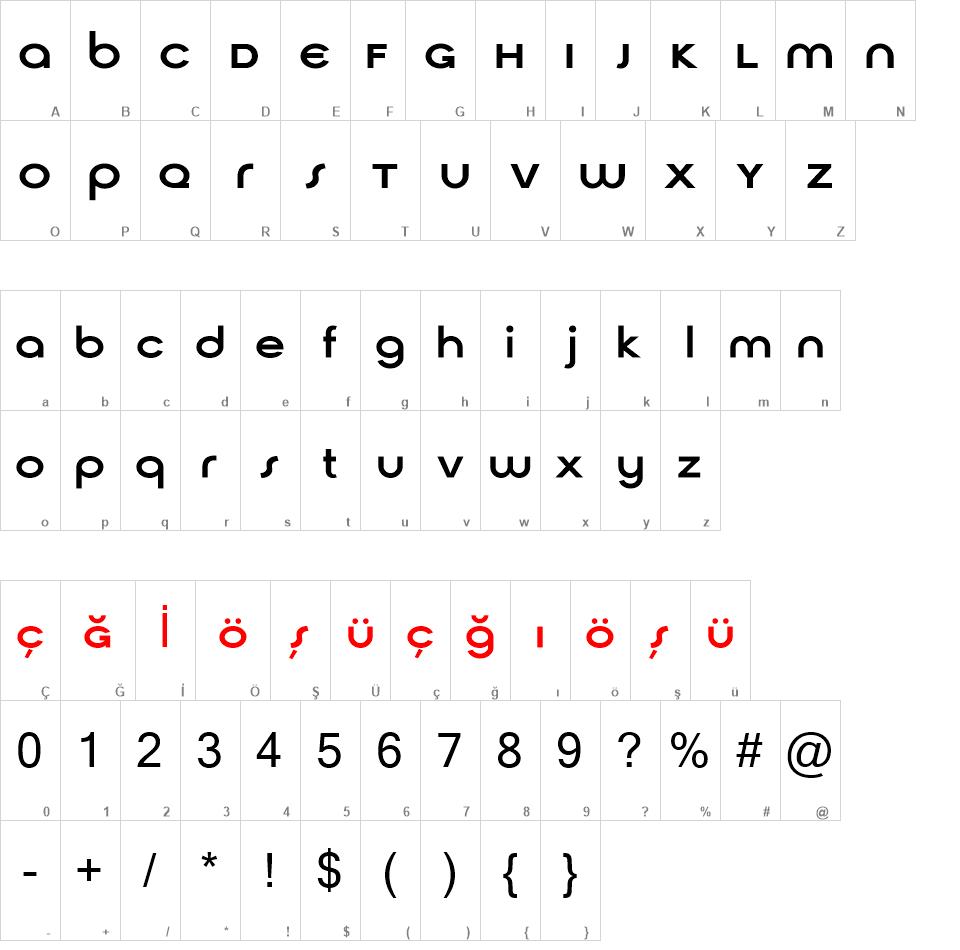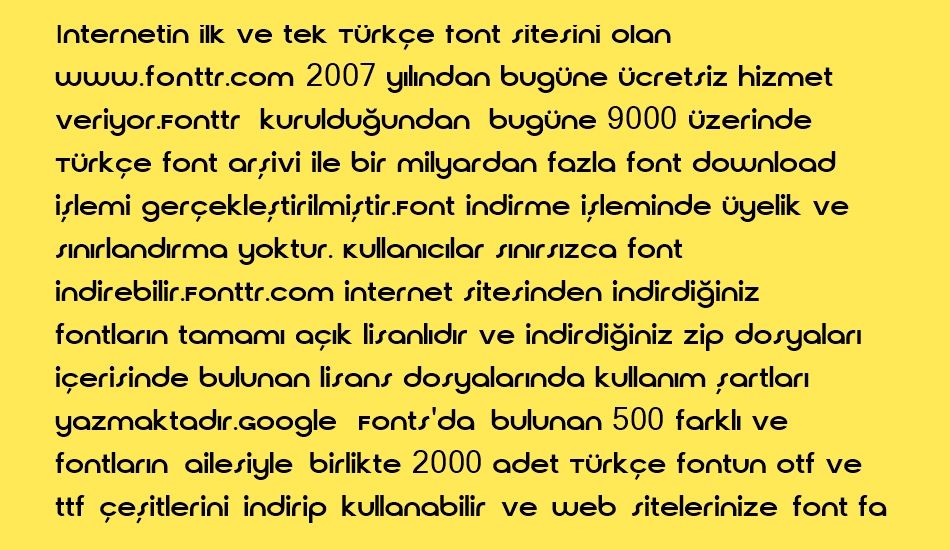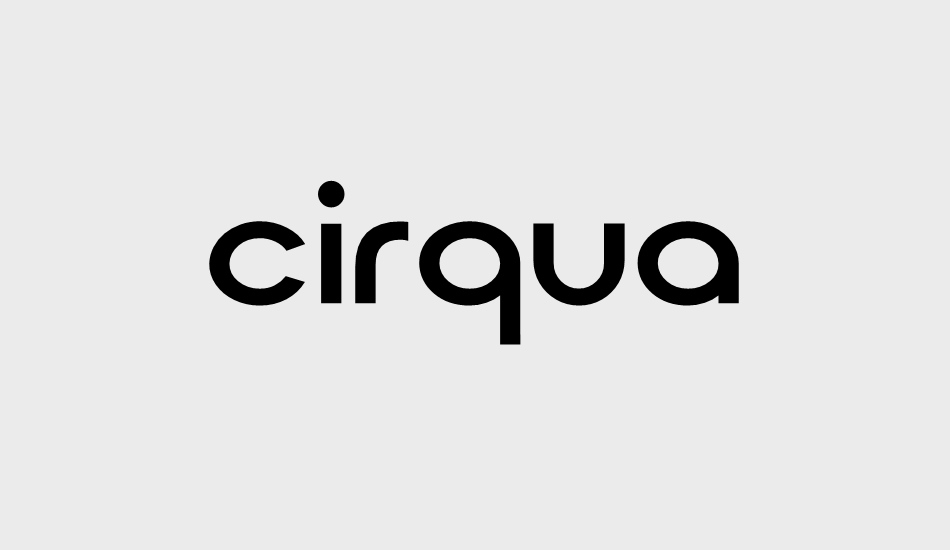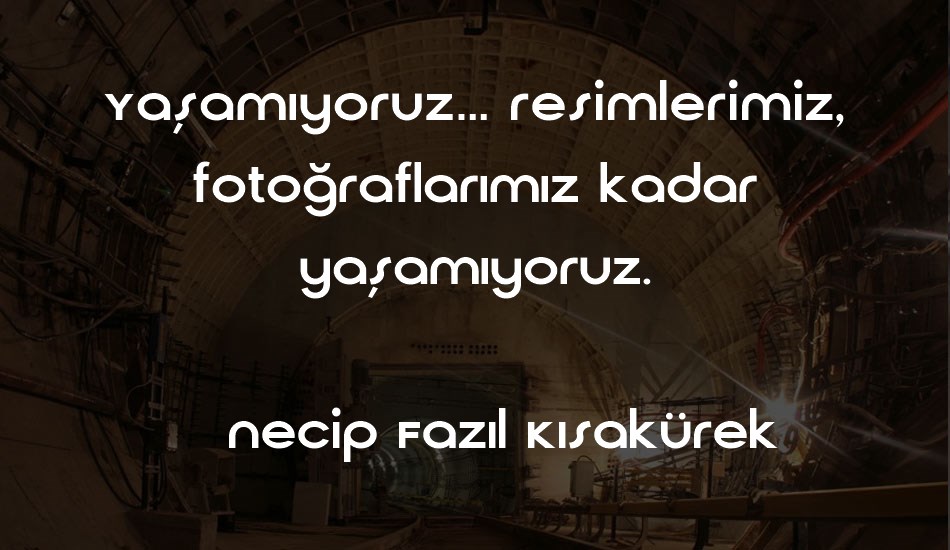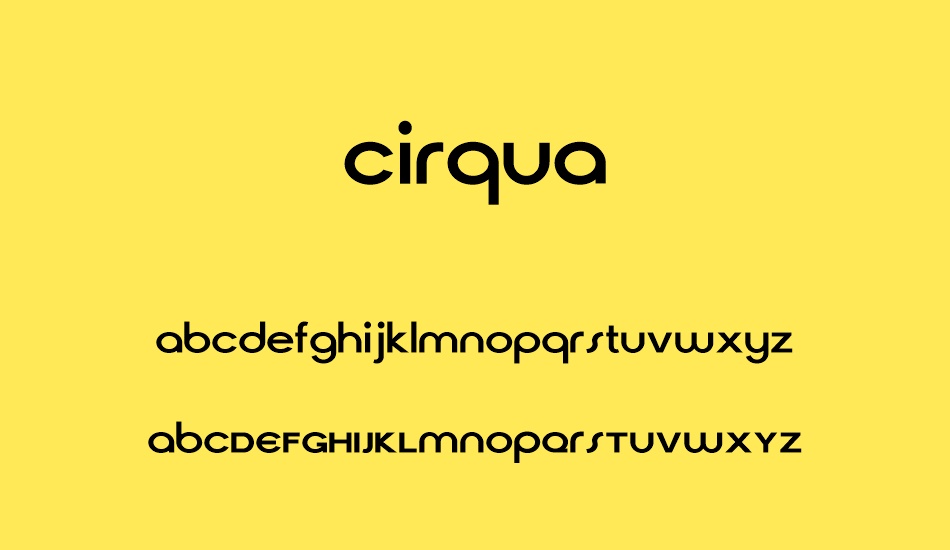
Cirqua font
Cirqua
This is another font that started life as a logo design project. The project was shelved and my intention was to finish the font as a standalone project, but other commitments have made this impossible.
The font was originally going to contain only lower case characters, but I've mapped a set of characters to the upper case slots, which contains a few capital forms.